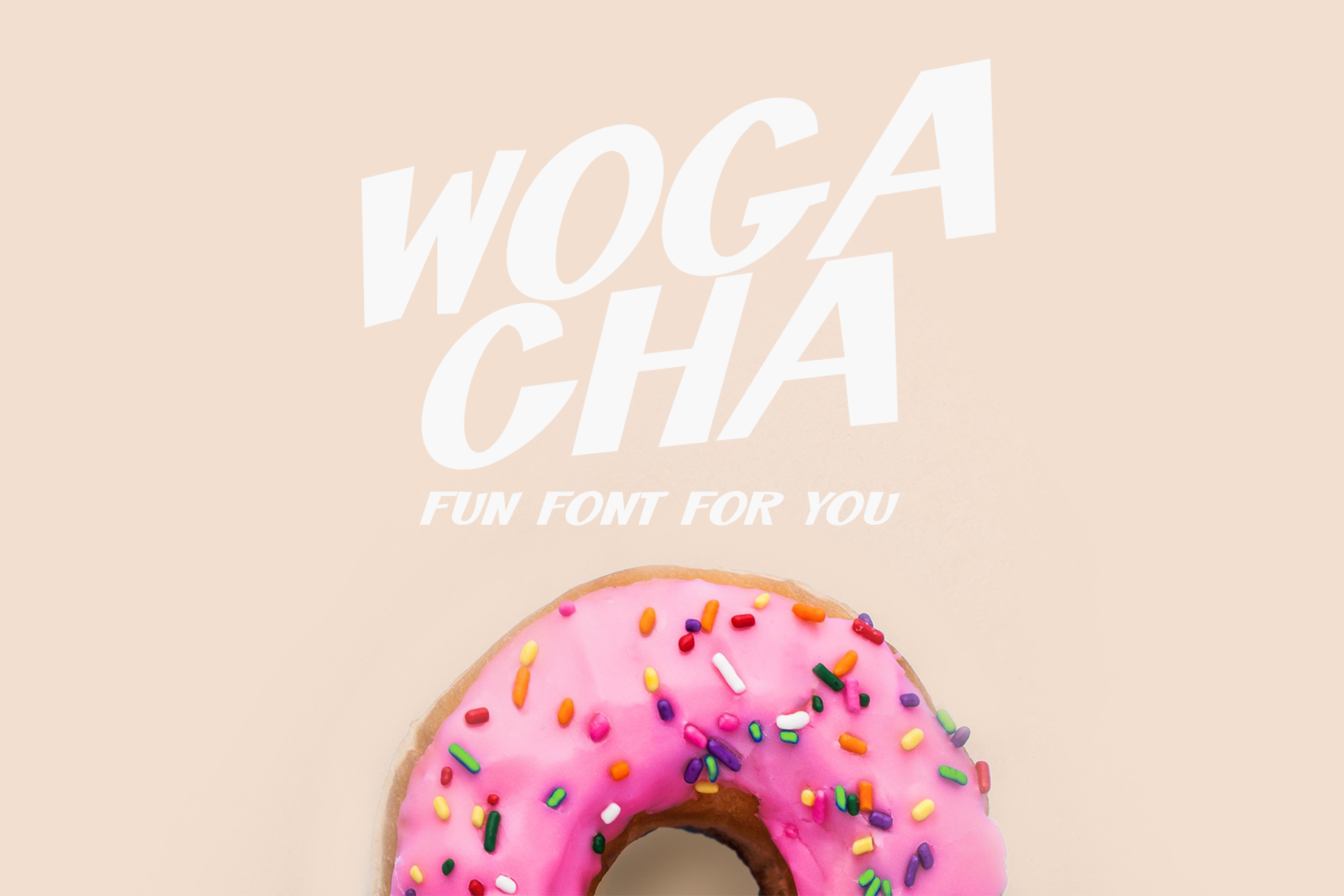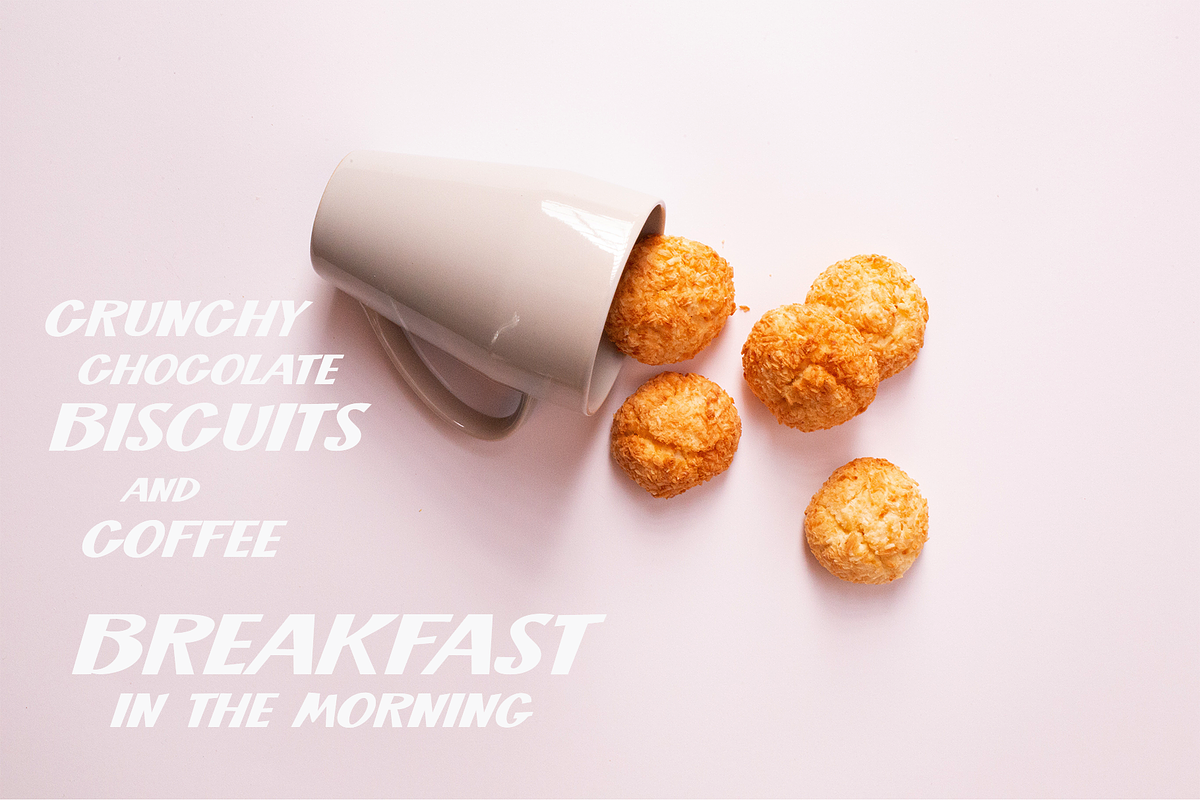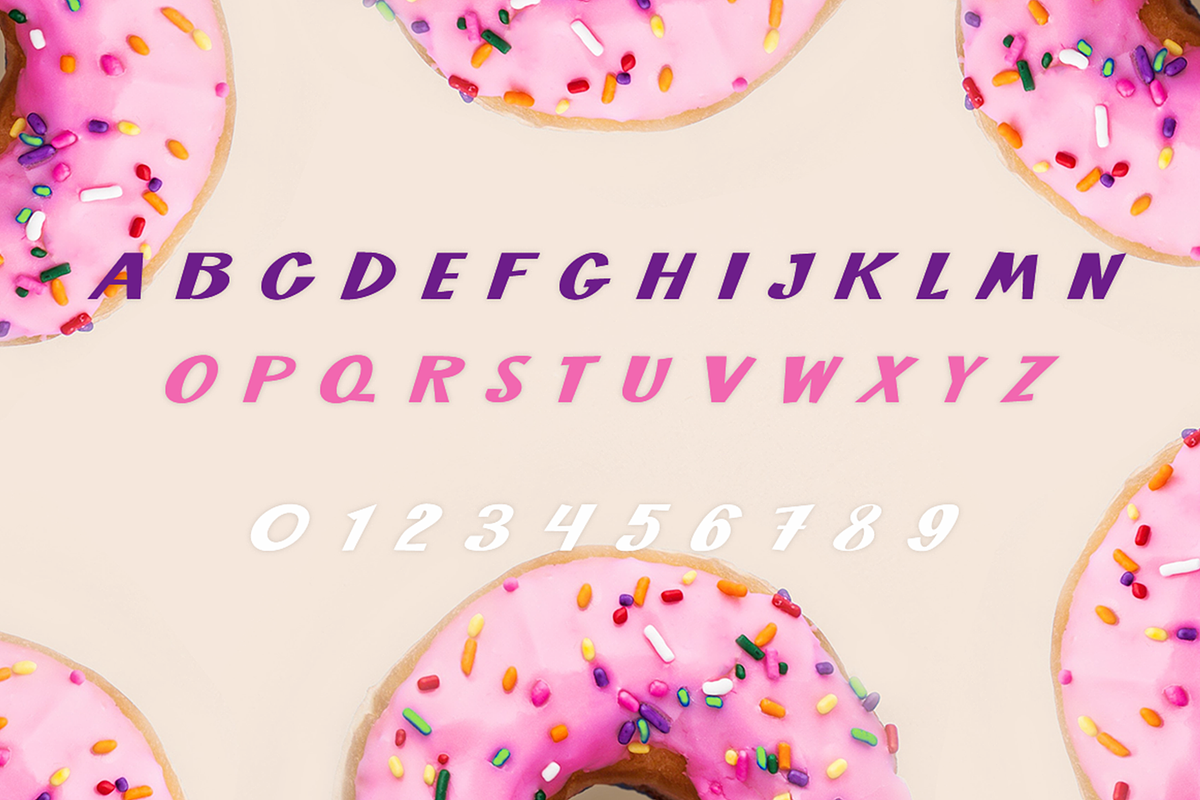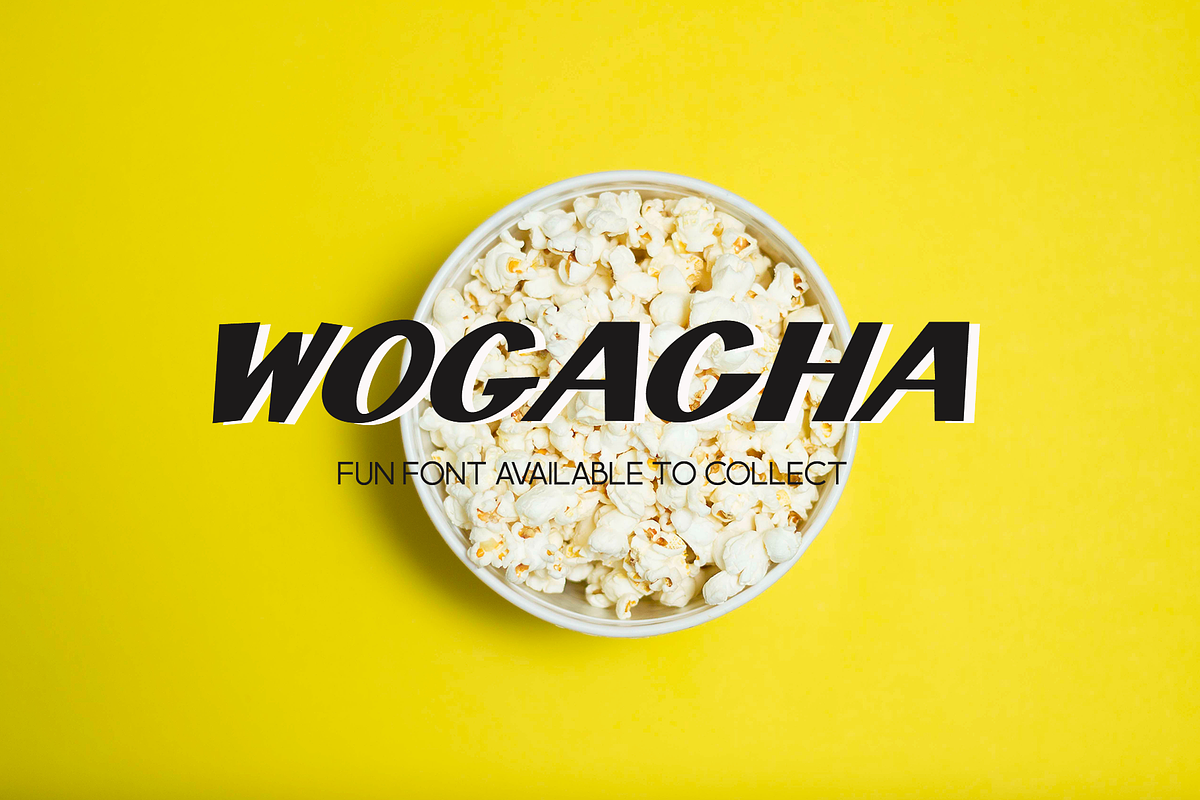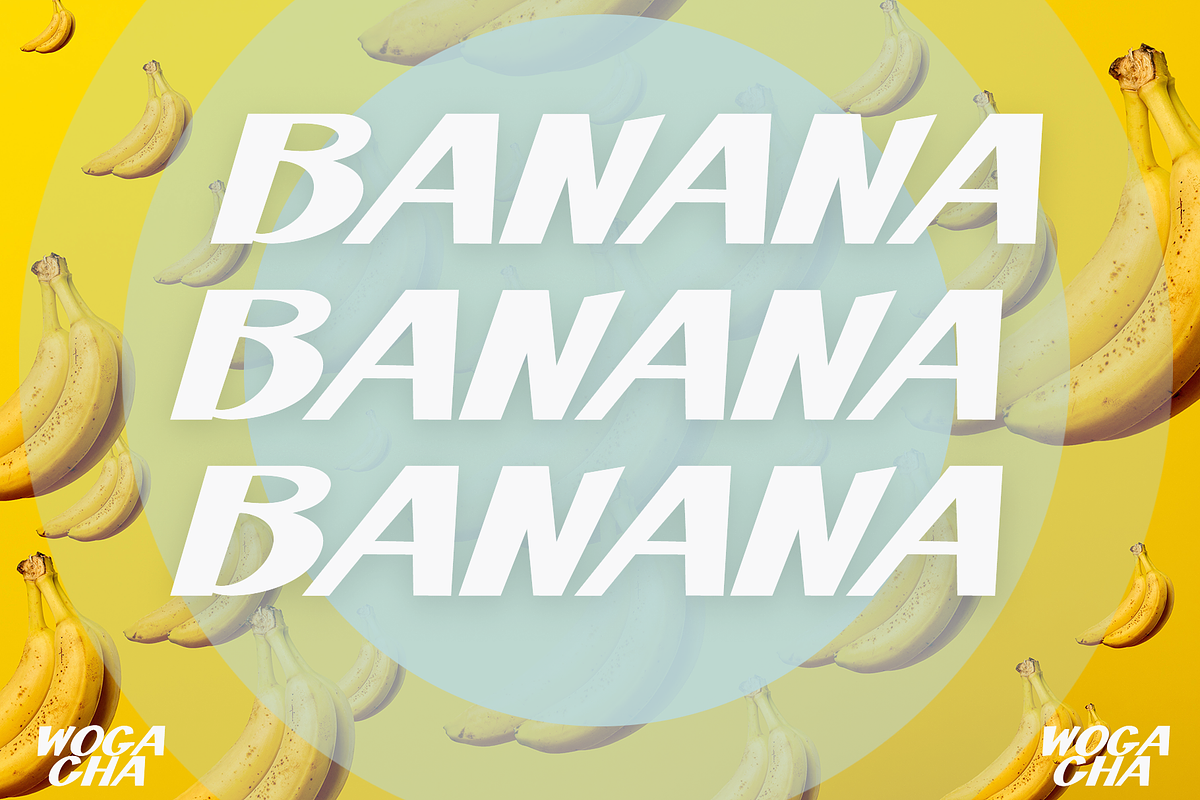
Wogacha - Fun Font For You
Introducing Wogacha, a modern, cheerful, and fun display font. Its unique and wonderful feel. So perfect for you who needs a typeface for logo designs, magazine, social media, brochure, and many more.